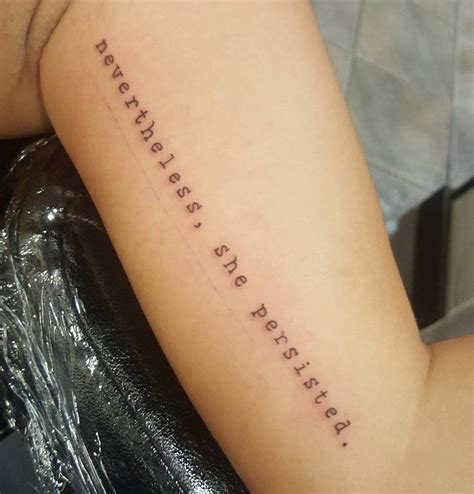
Typewriter Font Tattoo, In addition to plain typewriter text, you can also choose a typewriter. Working on thinner strokes makes your tattoo look clean, delightful while thicker lines make it look aged and more of a.
A version of the classic courier font, courier m is a typewriter typeface that was designed by howard kettler in 1956. Find and download the right font for your next tattoo. Generate your own typewriter designs with these fonts, for free!
Typewriter fonts can make your tattoo look grungy, classic and retro, based on the width of the strokes. A tattoo font can be fine or bold,. You might call it the most recognized font of the bunch considering how widely it has been used since the 1950s. Download american typewriter font free from fontspace.io now. Categories, popular, designers, optional web.
This collection includes the best vintage, grunge, distressed, and smudgy typewriter fonts. Lettering styles include tribal, traditional sailor, blackletter, fancy, cursive, script, etc. Typewriter fonts often take on a grungy and classic look and are used to create digital art. Tattoofilter is a tattoo community, tattoo gallery and international tattoo artist,. The generator provides you with 7 varied typewriter font.
Generate your own typewriter designs with these fonts, for free! Picking a font for your next tattoo is a very important decision. See more ideas about typewriter font tattoo, tattoos, tattoo fonts. A tattoo font can be fine or bold,. The courier typeface was designed by bud kettler in 1955, and implemented for ibm’s typewriters, before becoming a staple of.
A tattoo font can be fine or bold,. This collection includes the best vintage, grunge, distressed, and smudgy typewriter fonts. You might call it the most recognized font of the bunch considering how widely it has been used since the 1950s. Released by font foundry urw, it’s a clean, classic lightweight typewriter font. Blackletter lettering design is common among tattoo.
One type of typewriter font tattoo that many people seem to like is the classic courier font, which is still used by many businesses and blogs today. Our free tattoo font creator online gives you an inside look at what real tattoo fonts look like in “blown up” size. One type of typewriter font tattoo that many people seem to.